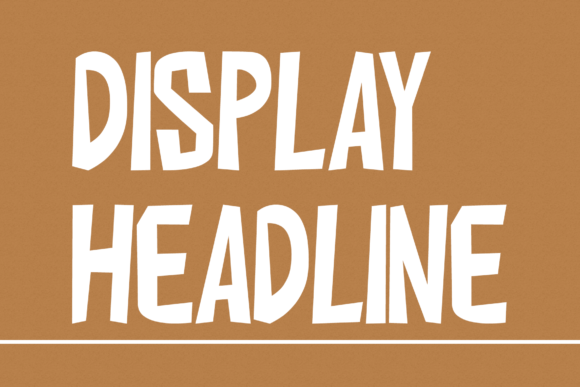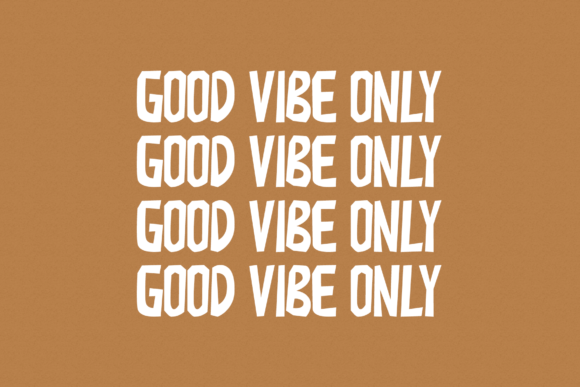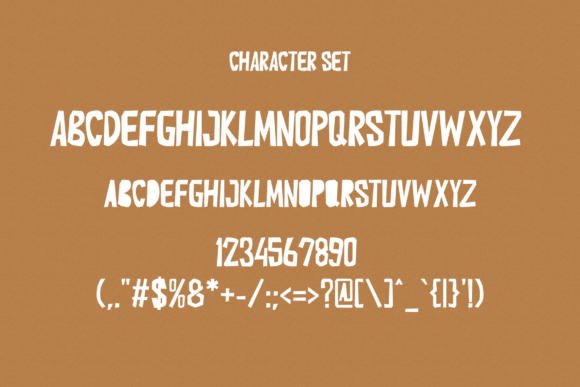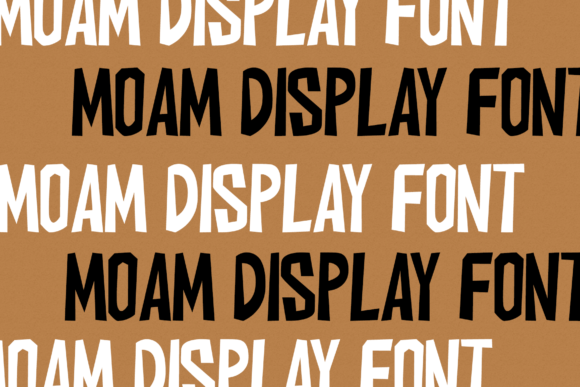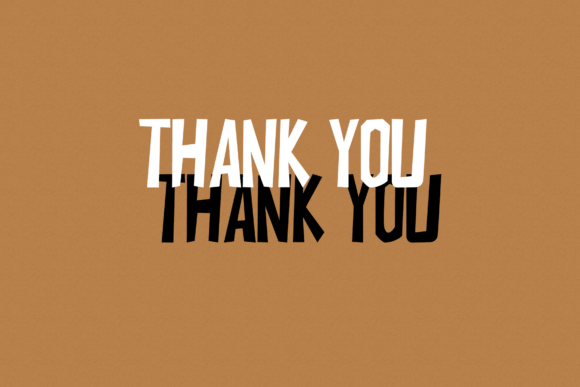
Introduction to Moam Font
You know that moment when you’re working on a creative project, and everything just clicks? The design is flowing, and the words are effortlessly falling into place? That’s what happens when you have the perfect font at your fingertips. For designers, the right font can be the difference between a good project and a great one. And that’s where the Moam Font comes in.
This quirky display font is a game-changer for any design project. With its unique style and high-quality design, it’s perfect for adding a touch of personality to your work. Whether you’re working on a branding project, a website, or a social media campaign, the Moam Font is a valuable resource that’s sure to elevate your design.
Key Features of Moam Font
- Unique, hand-drawn design with a transparent background, allowing for easy layering and customization.
- Perfect for designers and artists working on creative projects, from branding and marketing materials to digital art and graphics.
Honest Review: Moam Font
I recently had the chance to experiment with the Moam Font for a creative project and was pleasantly surprised by its potential. This free download has definitely earned its place as a valuable design resource.
What works well: ✨ The high quality of the font is immediately apparent, with crisp lines and a professional feel that makes it perfect for a wide range of projects. The transparent background also allows for seamless integration into any design, whether it’s a logo, infographic, or presentation.
Here are a few of my favorite features of the Moam Font:
- Highly versatile and suitable for a variety of design applications
- Easy to read and understand, even in small sizes
- Perfect for creative projects that require a touch of sophistication and elegance
While I was generally impressed with the Moam Font, there are a few limitations to be aware of: ⚠️ The font only includes uppercase letters, which may be a drawback for projects that require extensive text. Additionally, the font may not be suitable for very small font sizes, as the lines can become blurry.
Overall, I’m a fan of the Moam Font and would recommend it to designers looking for a high-quality, free download. With its versatility and professional feel, it’s definitely worth adding to your design arsenal.
The Moam Font is a high-quality, free design resource ideal for creative projects requiring a unique and stylish touch. With its transparent background, this versatile font can be used across various platforms to elevate your designs.
The Moam Font is ideal for use in creative projects such as logo design, branding, and marketing materials. Its transparent background and high-quality design make it perfect for use in digital designs, social media graphics, and website headers.
To get the most out of the Moam Font, use it in conjunction with other design elements to create a cohesive and stylish look. Experiment with different font sizes, colors, and arrangements to achieve the desired effect.